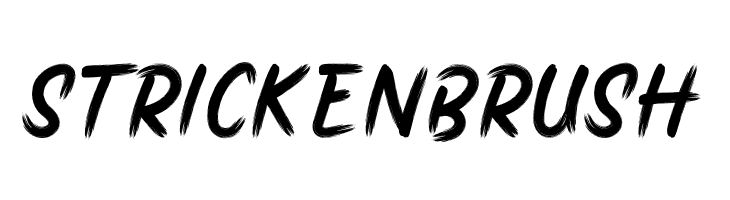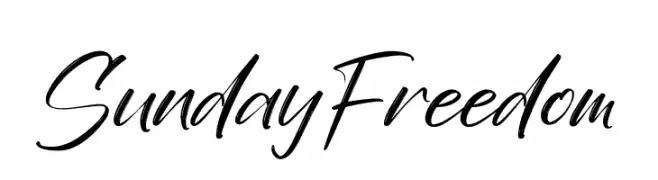
A bold, dynamic script font with sweeping strokes and modern flair.
A dynamic brush-style font with bold, sweeping strokes and a lively aesthetic.
A dynamic and elegant script font with fluid, sweeping strokes.
A bold, graffiti-inspired font with dynamic, sweeping strokes and urban flair.
A dynamic script font with fluid, sweeping strokes and a brush-like texture.
A fluid, italic script font with bold, sweeping strokes and elegant flourishes.
A flowing, cursive font with elegant, sweeping strokes and a sophisticated style.
A decorative, cursive font with bold, sweeping strokes and elegant flourishes.
A bold, cursive font with dynamic, sweeping strokes and a lively style.
A dynamic and expressive script font with fluid, sweeping strokes.